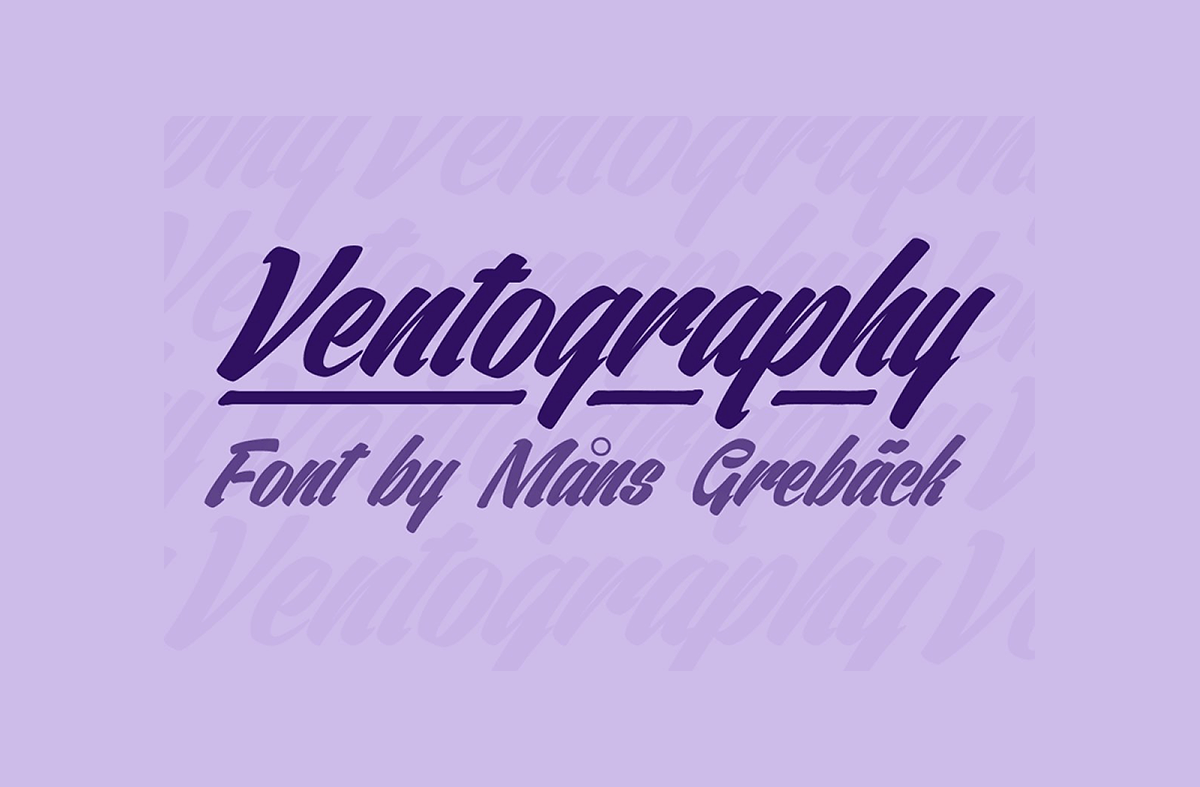
Ventography Font
Ventography Font High quality script font with multilingual support and a large number of special characters. Designed by Måns Grebäck, this hand-crafted typeface works great in logotypes and for titles and slogans.